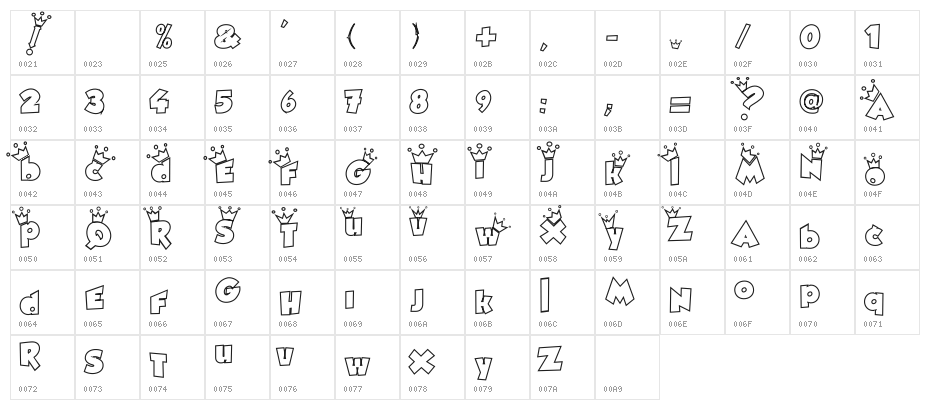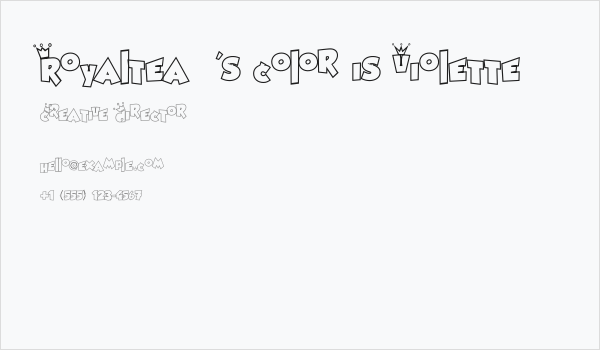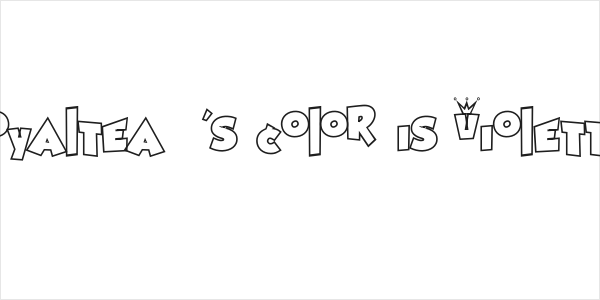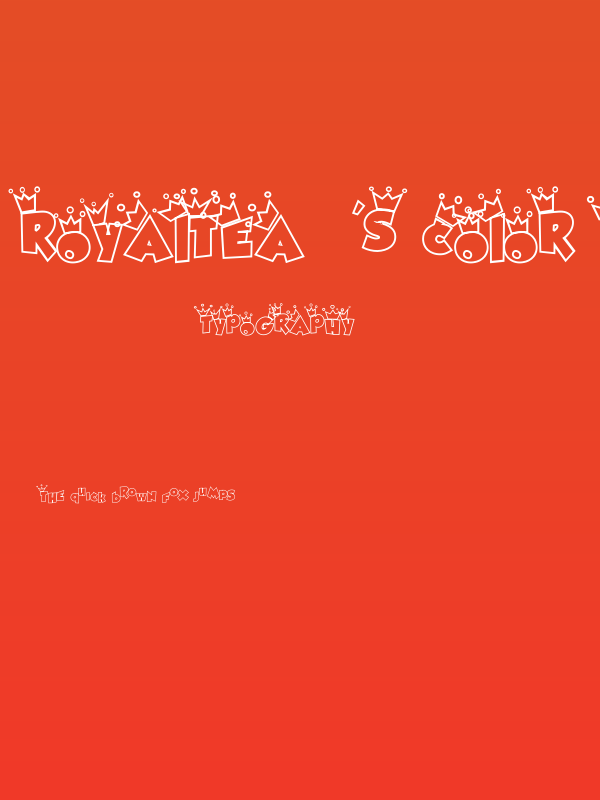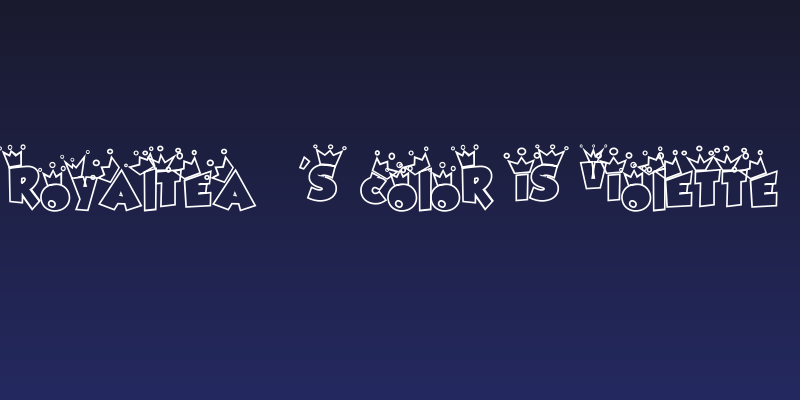
Royaltea's color is Violette Font
Royaltea's color is Violette Description
This playful and whimsical font features a unique design where each character is adorned with a small crown, adding a regal and fun touch. The letters are bold and cartoonish, with a slightly irregular shape that enhances their playful nature. The font includes both uppercase and lowercase letters, numbers, and a selection of special characters. The overall style is decorative and eye-catching, making it suitable for projects that require a touch of whimsy and creativity. The bold outlines and crown motifs make it particularly appealing for children's materials, party invitations, or branding that seeks to convey a sense of fun and royalty.
| Proposed Projects | Ideal for children's books, party invitations, playful branding, and creative posters. |